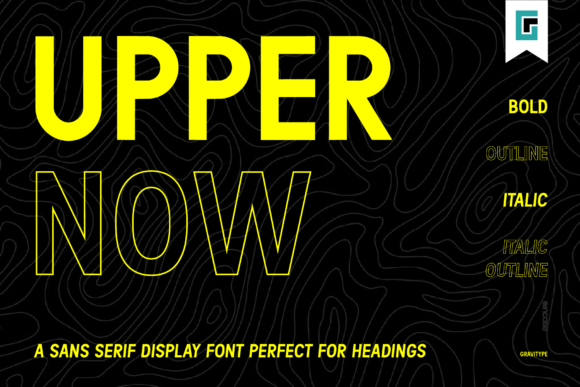
Introducing Upper Now Font, a captivating display font that radiates boldness, thickness, and coolness. The perfect choice for web designs and business cards, Upper Now will infuse your projects with a distinctive touch that commands attention. Let your creativity soar as you see your words leap off the screen in this unique font.
Embark on a typographic adventure with Upper Now, crafted meticulously by Gravitype. With its modern and sleek design, it stands out from ordinary fonts, injecting energy and vibrancy into your digital masterpieces. Whether you're a seasoned design professional or just embarking on your creative journey, Upper Now will elevate your work to new heights.
Immerse yourself in a world of infinite possibilities. Upper Now is the perfect font for creating eye-catching headlines, captivating titles, and stunning logos. Its strong and prominent letters will make your text resonate with power and authority, leaving a lasting impression on your audience.
But Upper Now is more than just a visually striking font. It's a tool that ignites your imagination and inspires you to think outside the box. With Upper Now, you can craft designs that reflect your unique style and leave an indelible mark on the digital landscape.
So why settle for ordinary when you can have extraordinary? Choose Upper Now and unlock a new dimension of typographic expression. Let your creativity flourish, experiment with different designs, and witness the transformation of your digital creations into awe-inspiring masterpieces.